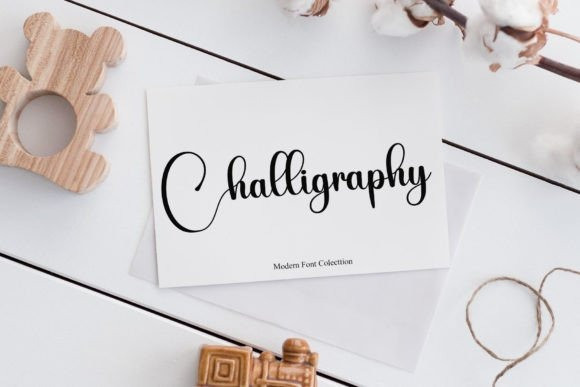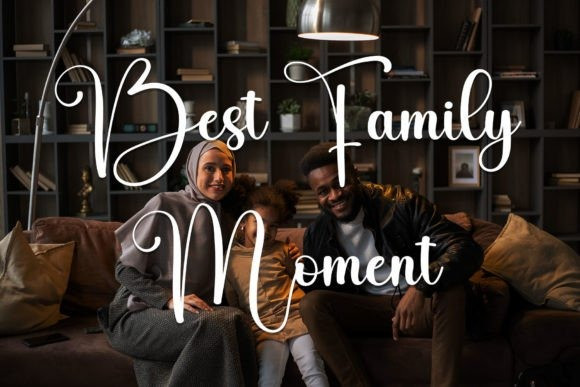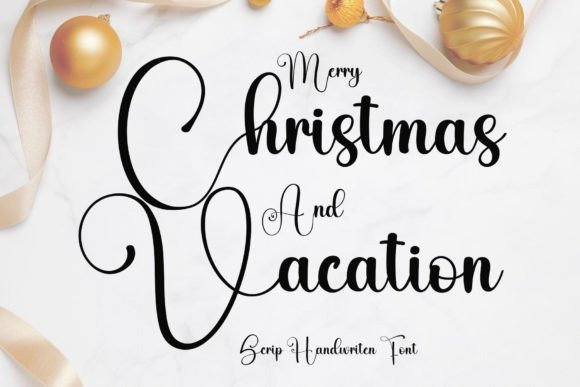
Christmas Vacation Font
Christmas Vacation Font is a sweet and beautiful handwritten font. Featuring characters that dance along the baseline, this font will add a luxury spark to any design project you wish to create!